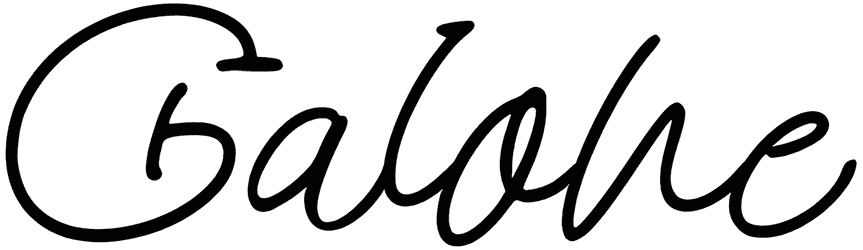
Galone Font
If establishing a feeling of personalization, delicacy, momentum, and softness is your main purpose in the realm of designing graphic content, then you should never overlook a magical script font such as the Galone.